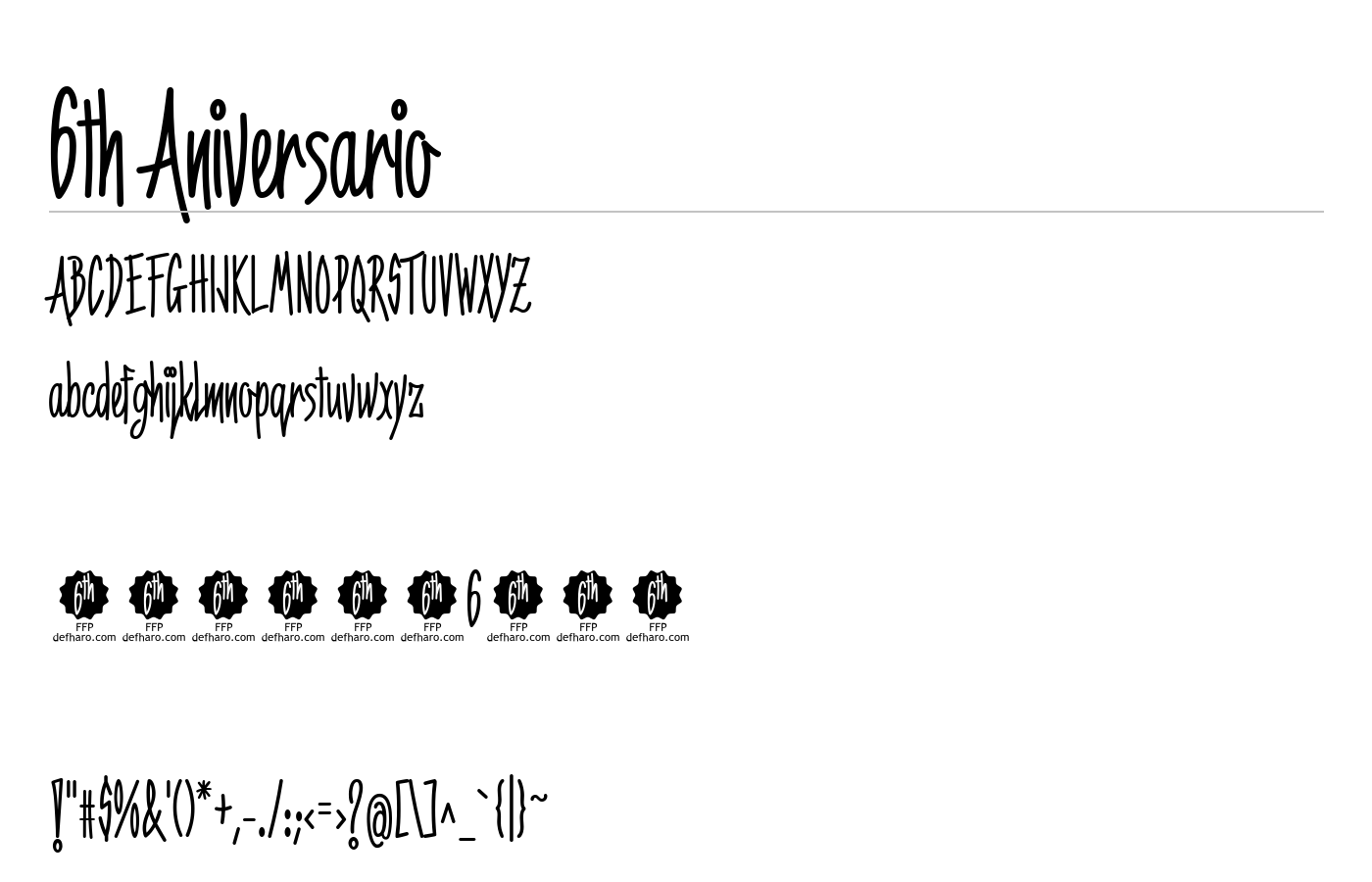
6th Aniversario is a playful, condensed handwritten font with tall, narrow letterforms and a lively, casual character. Its irregular strokes and quirky shapes make it ideal for creative projects that want to convey a fun, informal vibe, such as greeting cards, party invitations, or unique branding. This font works best in headlines or short texts where a personal, energetic touch is desired.
6th Aniversario Font
About 6th Aniversario Font
| Font family | 6th Aniversario Font |
| Designer | deFharo |